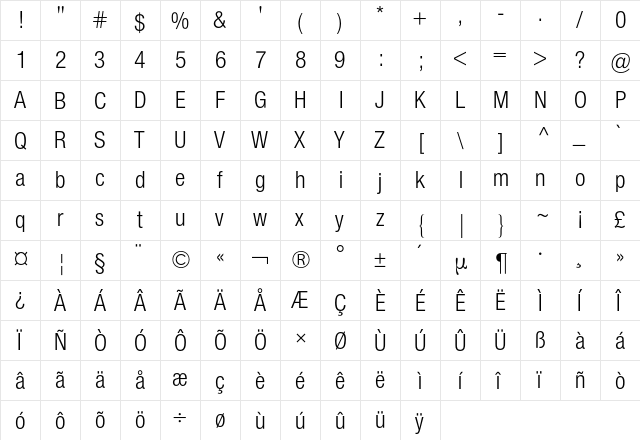
Neue Helvetica Condensed BQ Regular Font Preview
Neue Helvetica Condensed BQ Regular
Design Context for Neue Helvetica Condensed BQ Typeface
Neue Helvetica Condensed BQ is a composed and adaptable typeface that performs quietly and consistently across a wide range of design contexts. The condensed width makes it efficient for tight spaces without sacrificing legibility.